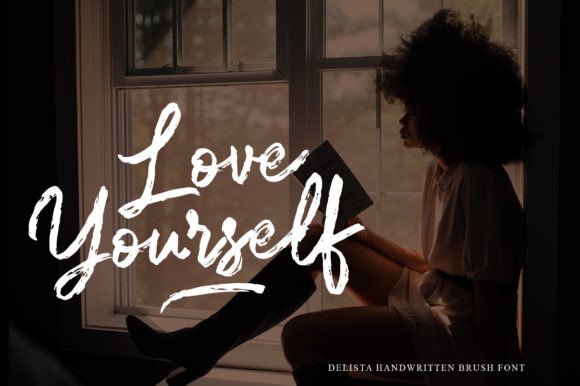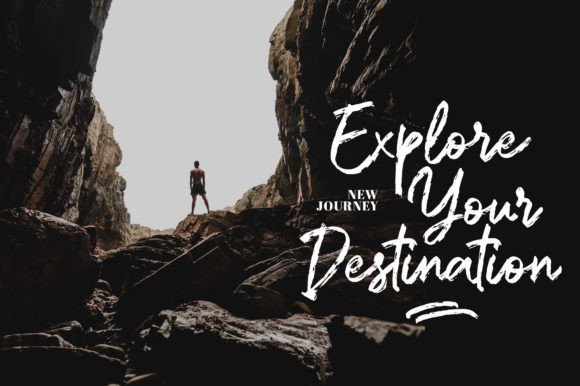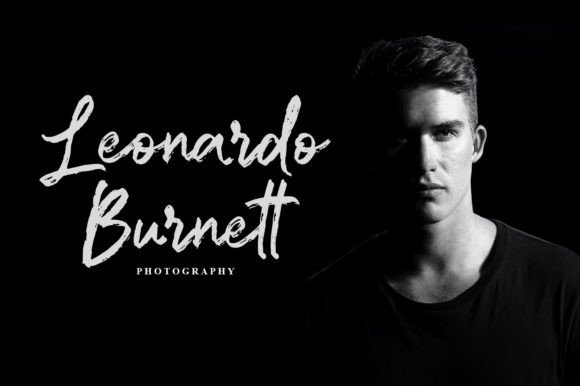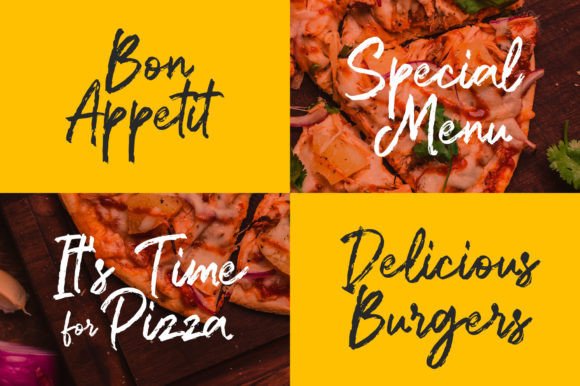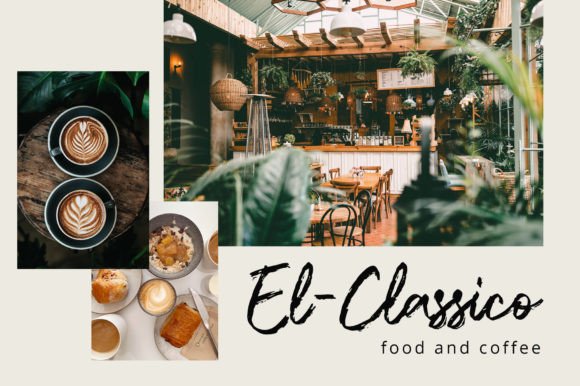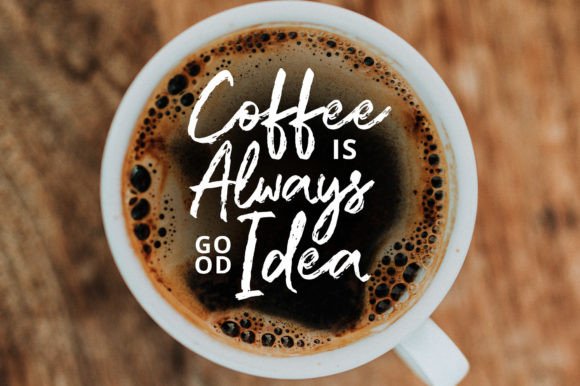
Introduction to Delista Font
Introducing our new font, perfect for your label, signature, and logo needs: our Delista – Handwritten Brush Font.
This font features a rough brush texture that adds a unique, handmade feel to your designs Its stylish script style, combined with the natural flow of handwriting, makes it a versatile option for a wide range of projects.
Delista Font offers exceptional quality and versatility, making it a valuable addition to your design toolkit. Whether you’re creating for personal projects or commercial use, Delista Font delivers professional results.